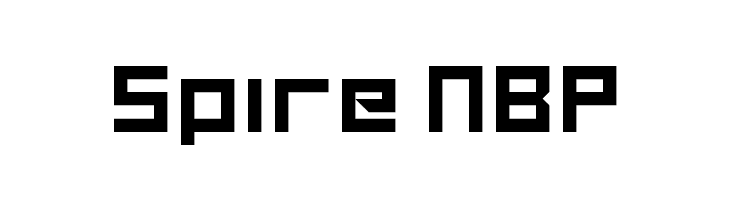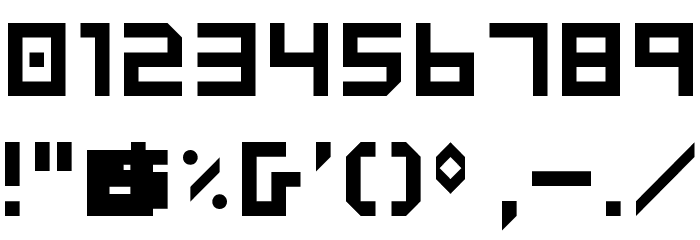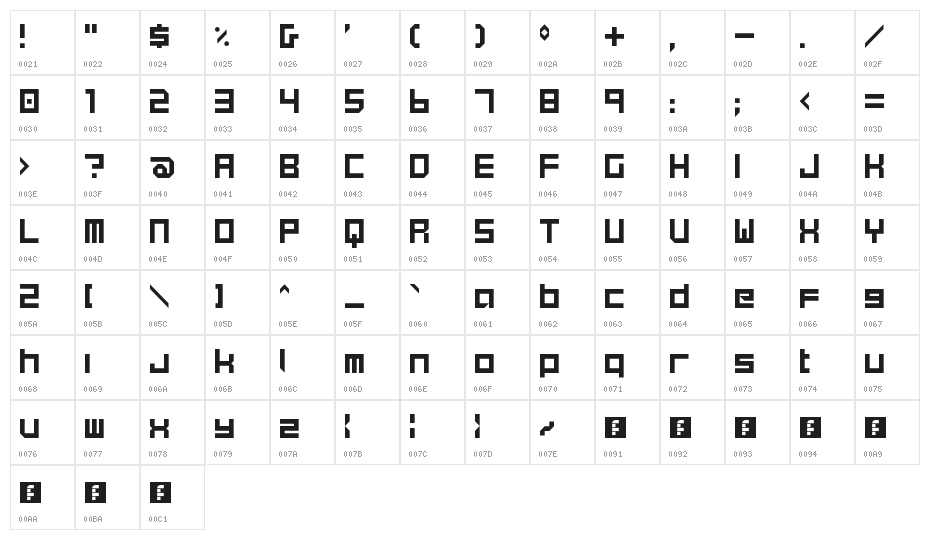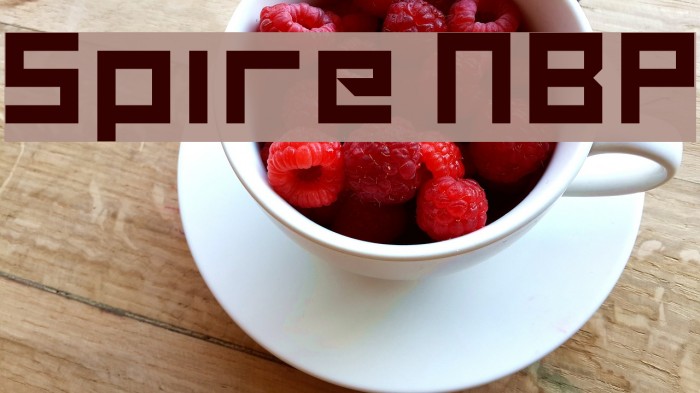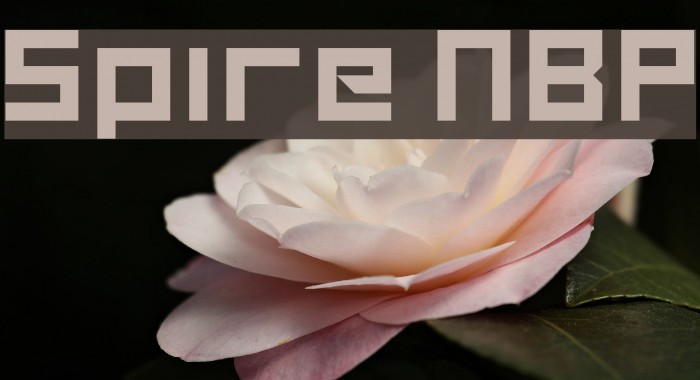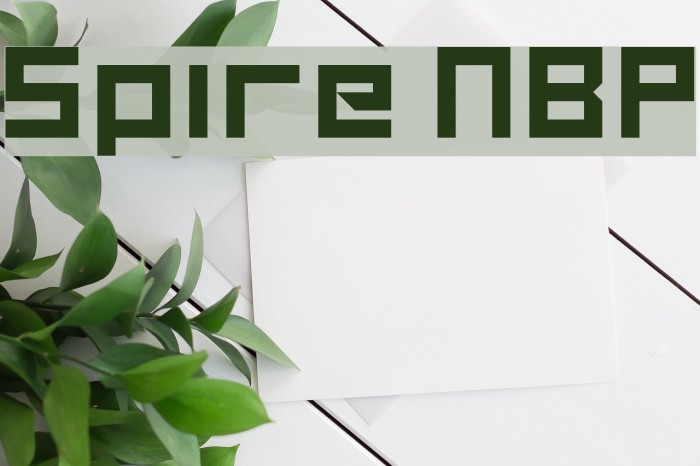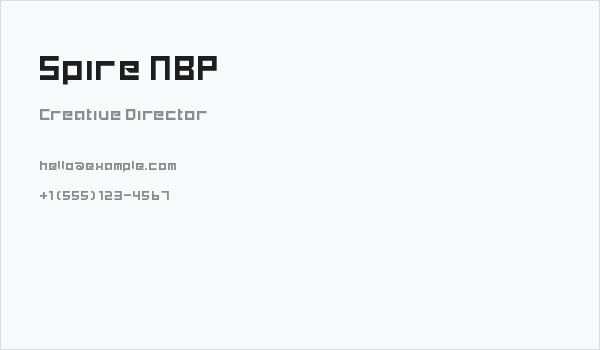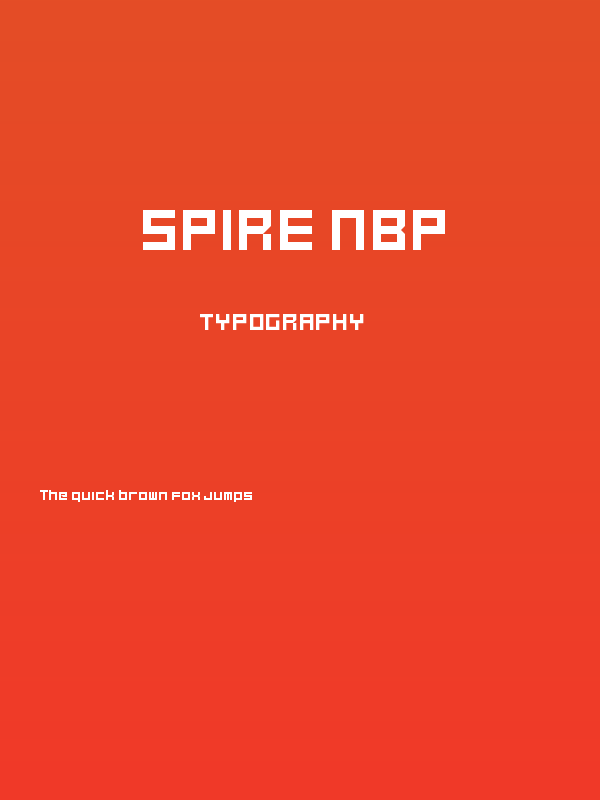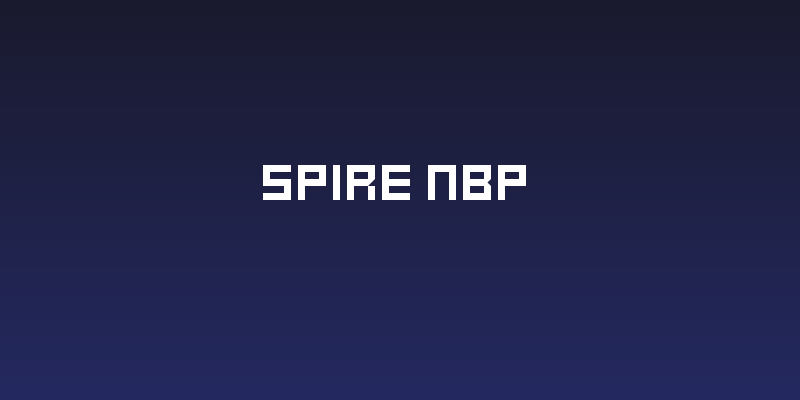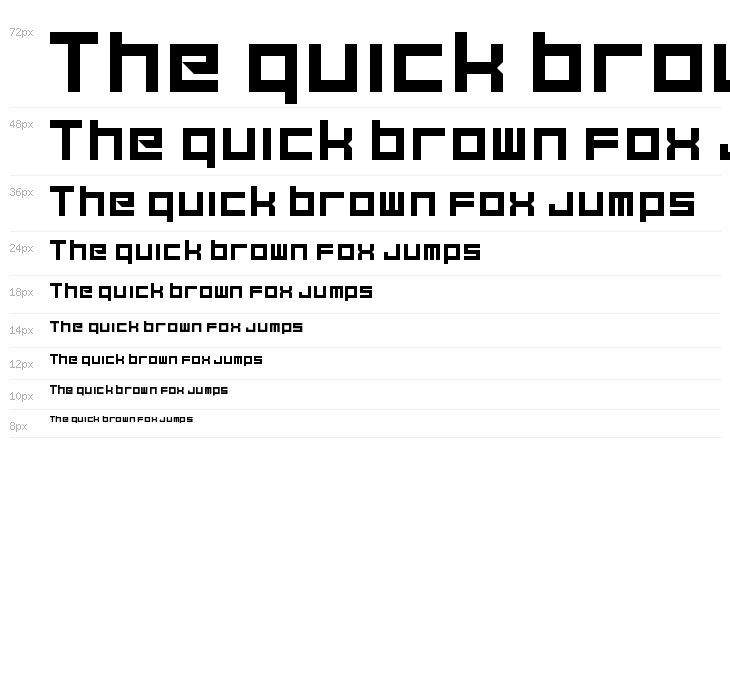
Spire NBP Font
Spire NBP Description
This font features a geometric, blocky design with a futuristic and digital aesthetic. Each character is constructed with straight lines and sharp angles, giving it a mechanical and structured appearance. The uppercase and lowercase letters maintain a consistent height, contributing to a uniform look. Numbers and special characters follow the same angular design, ensuring cohesion across all elements. The font's bold and solid strokes make it highly legible, even at smaller sizes, while its unique style adds a modern and tech-inspired flair.
| Proposed Projects | Ideal for tech-related branding, video game interfaces, digital art projects, and modern advertising campaigns. |